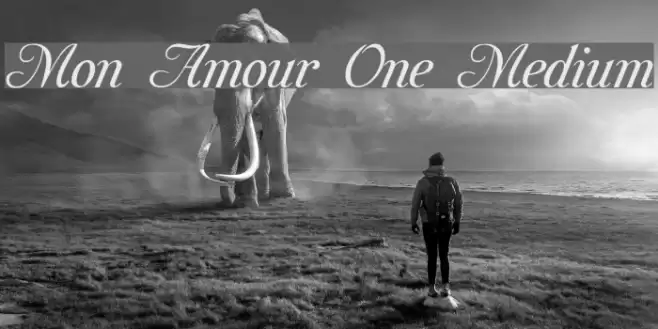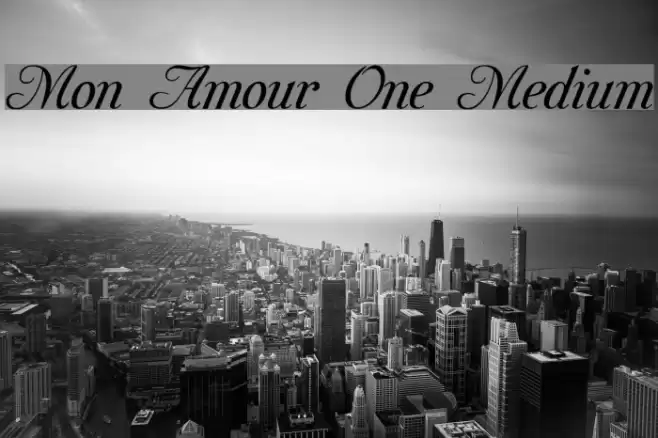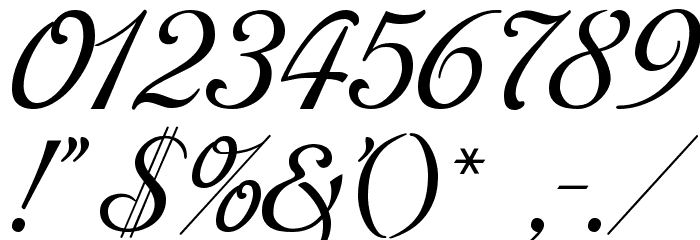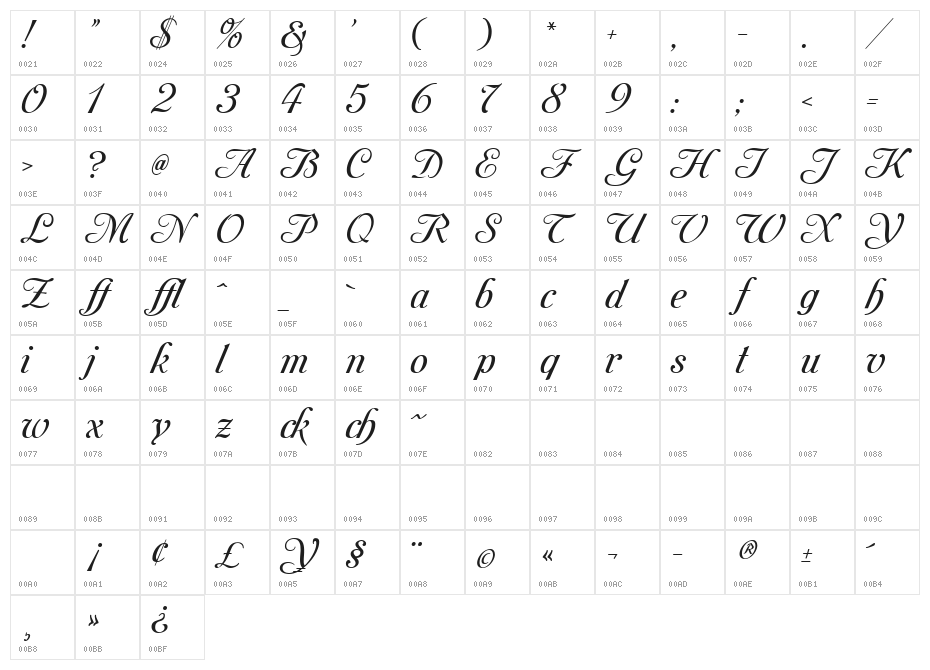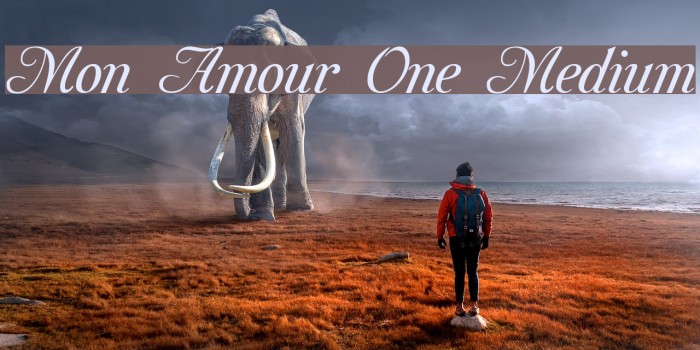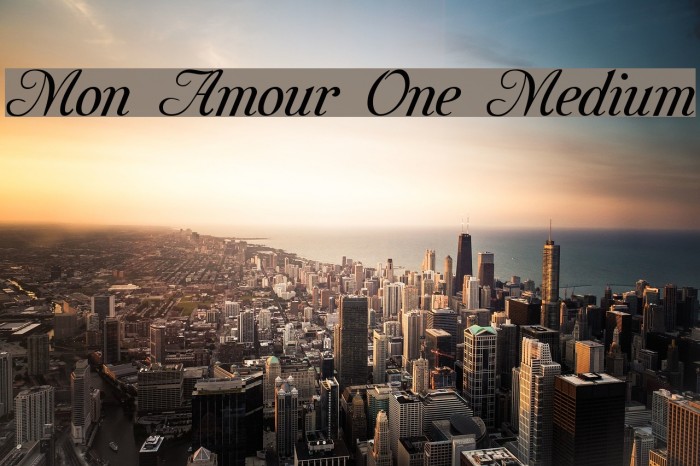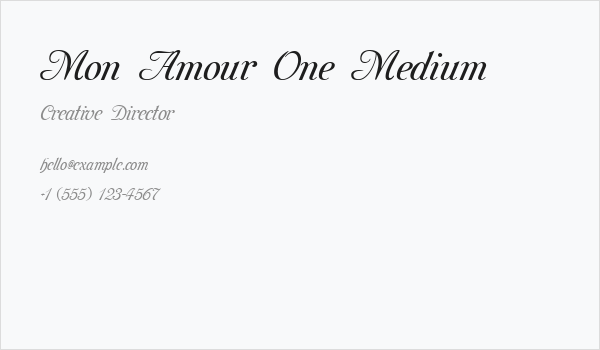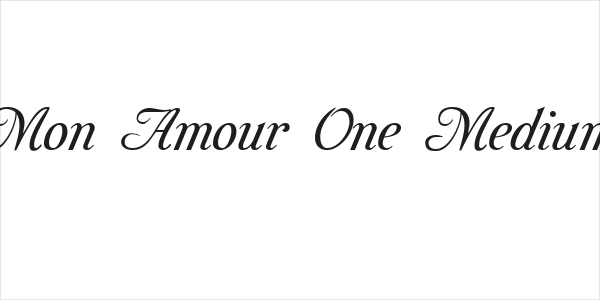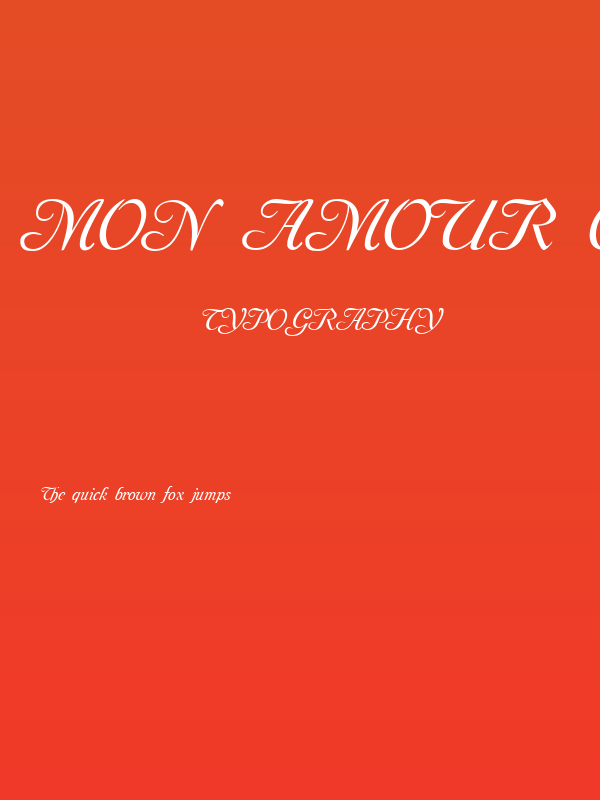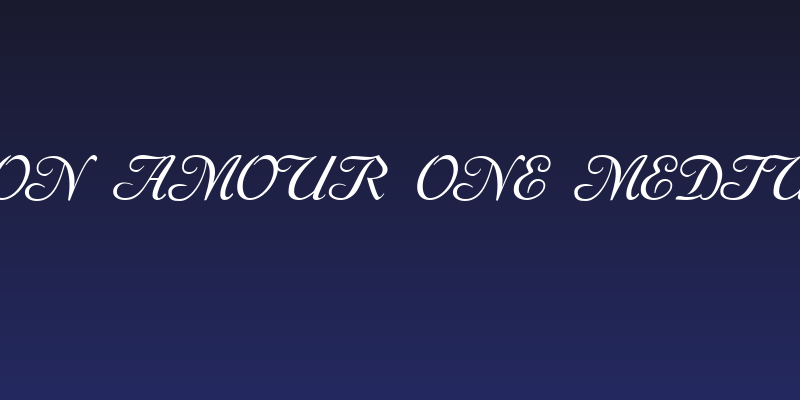
Mon Amour One Medium Font
Mon Amour One Medium Description
This elegant script font features a flowing, cursive style with a sophisticated flair. The uppercase letters exhibit graceful loops and swashes, while the lowercase letters maintain a smooth, connected appearance. The numerals are stylishly curved, complementing the overall aesthetic. Special characters are designed with intricate details, enhancing the font's decorative nature. The font's refined elegance makes it suitable for formal invitations, branding, and high-end product packaging. Its artistic strokes and balanced proportions ensure readability while adding a touch of luxury and class.
An elegant script font with flowing, cursive style and sophisticated flair from Uncategorized fonts.
- Proposed Projects: Ideal for wedding invitations, luxury branding, and elegant product packaging.
- Overall Style: Elegant
- Use Case: Logos, Invitations, Branding